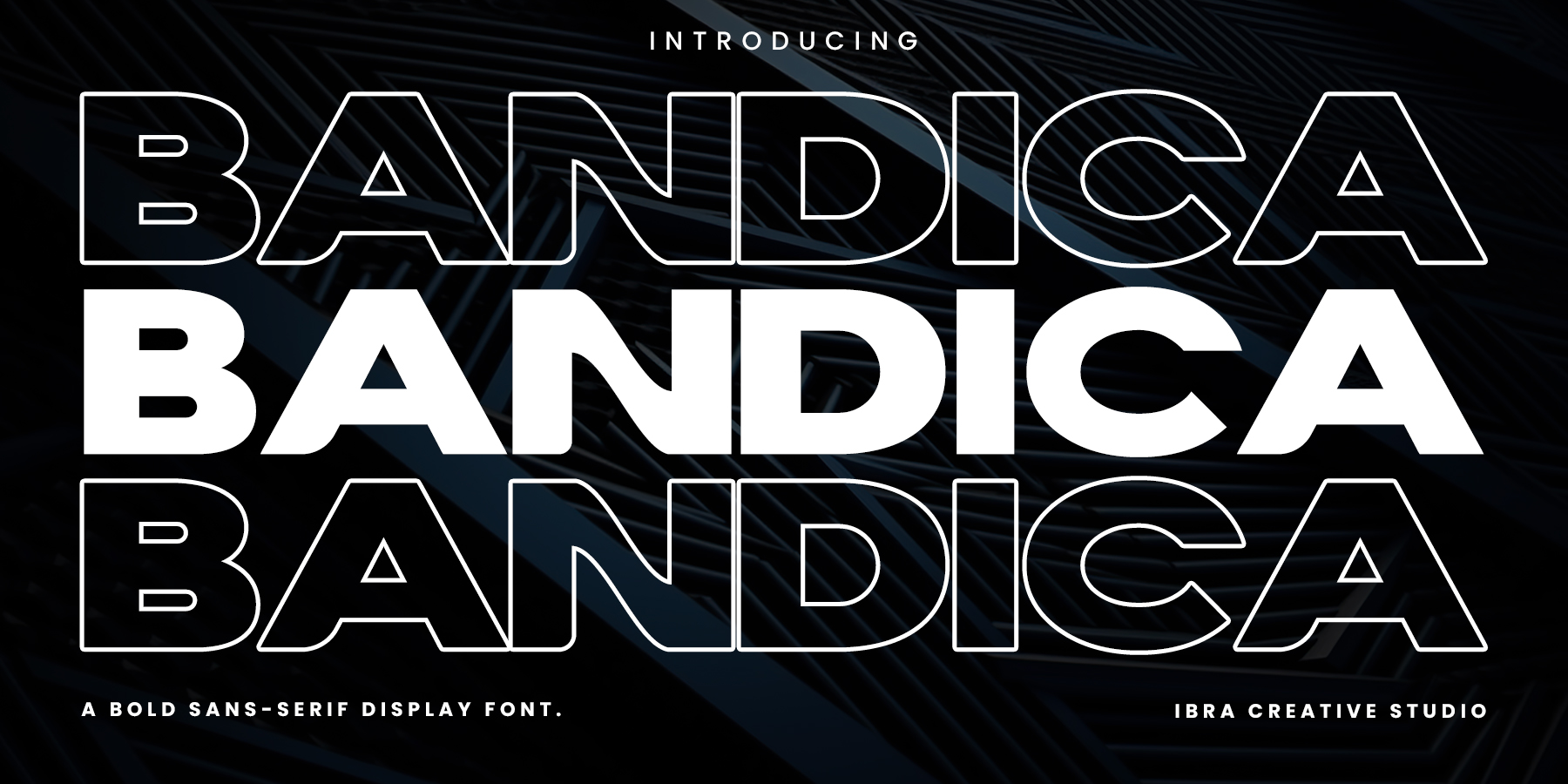
Bandica Font is perfect for warrior-themed gaming interfaces, Celtic battle games, historical warfare documentaries, Viking festival promotions, medieval combat events, ancient warrior museum exhibits, epic fantasy novels, and fierce competitive sports branding.
This font is exciting because it embodies the fierce spirit of ancient warriors with battle-hardened strength and legendary courage. Bandica Font features bold, aggressive letterforms with warrior-inspired edges that capture the essence of Celtic battle prowess and unconquerable determination, making it ideal for projects that require powerful impact and authentic warrior character.
The Bandica Font family includes regular, battle-worn, condensed, and heavy variants, along with warrior alternates and combat ligatures that enhance its fierce character. Each weight maintains the font's battle-ready aesthetic while providing different levels of warrior expression for various gaming and historical design applications.
Whether you're developing powerful gaming brands, creating compelling historical battle materials, or designing fierce competitive campaigns, Bandica Font Free Download delivers exceptional strength and warrior appeal. Its distinctive battle style makes it an excellent choice for designers seeking to add genuine warrior spirit and legendary courage to their projects. The font's versatility extends from fantasy gaming interfaces to historical museum displays, ensuring consistent performance across all warrior applications. With its powerfully crafted letterforms and battle proportions, this typeface provides professional results that inspire courage and establish dominant brand presence with its unmistakable warrior character and ancient Celtic battle sophistication.